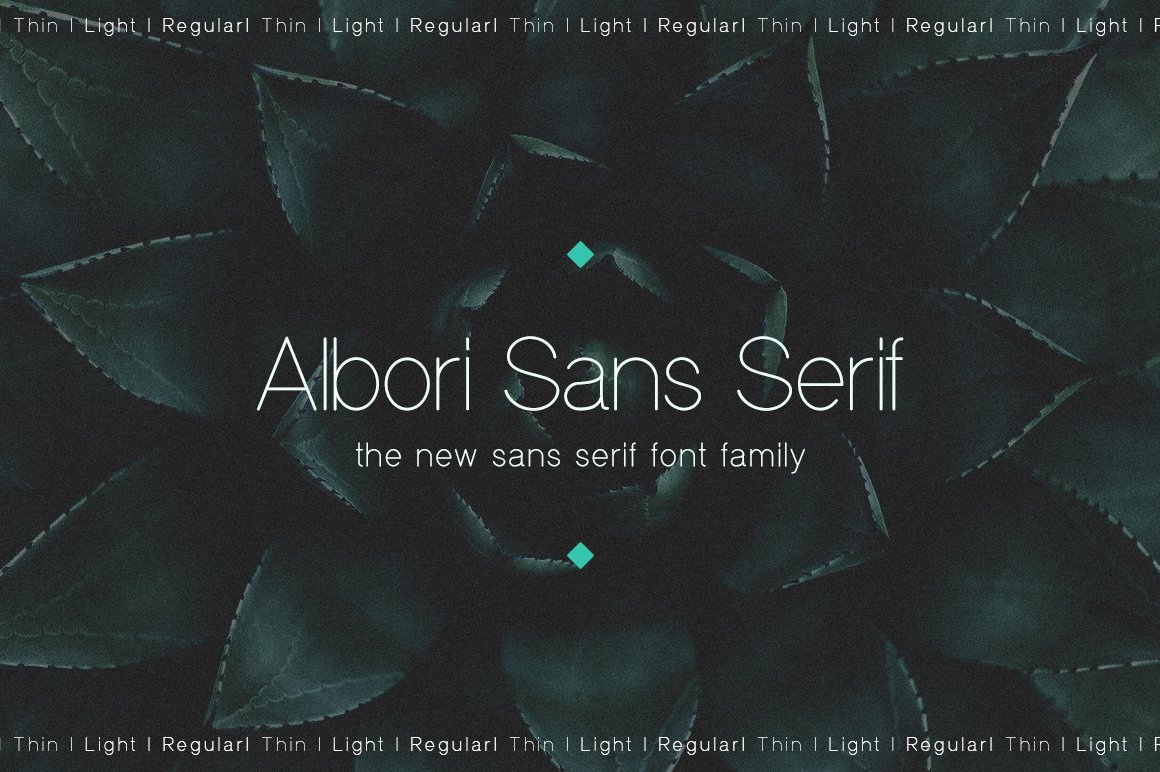
Albori Sans Serif Font
Albori Sans Serif Font is perfect for dawn wellness centers, sunrise yoga studios, early morning fitness programs, awakening personal development brands, fresh start coaching services, and new beginning celebration materials. Its luminous character makes it ideal for sunrise tourism companies, dawn photography services, morning meditation programs, early bird business initiatives, daybreak retreat centers, and any project requiring dawn inspiration with awakening energy and fresh beginning appeal.
This font is exciting because it captures the hopeful energy and infinite possibility of dawn while delivering exceptional functionality for organizations dedicated to new beginnings, personal transformation, and the inspiring power of fresh starts. The brightly crafted letterforms evoke the gentle warmth of sunrise, the promise of new days, and the optimistic spirit that comes with each dawn, creating powerful connections with audiences seeking renewal and positive change.
The Albori Sans Serif Font family typically includes Light, Regular, Medium, and Bold weights with dawn-inspired alternates, awakening ligatures, and sunrise elements that enhance its hopeful personality. This comprehensive collection enables wellness professionals to create inspiring brand systems that maintain authentic optimism while offering flexibility for various renewal applications requiring both gentle encouragement and contemporary motivational positioning.
Whether you're developing identity systems for wellness organizations, creating materials for personal development programs, or designing promotional content for fresh start services, Albori Sans Serif Font Free Download delivers the dawn inspiration and awakening energy that resonates with audiences seeking positive transformation and new beginnings. Its hopeful presence ensures memorable brand recognition across digital platforms and print materials, making it perfect for websites, mobile applications, and renewal campaigns that celebrate fresh starts, awakening potential, and the transformative power of each new dawn with contemporary wellness standards and authentic inspirational appeal.